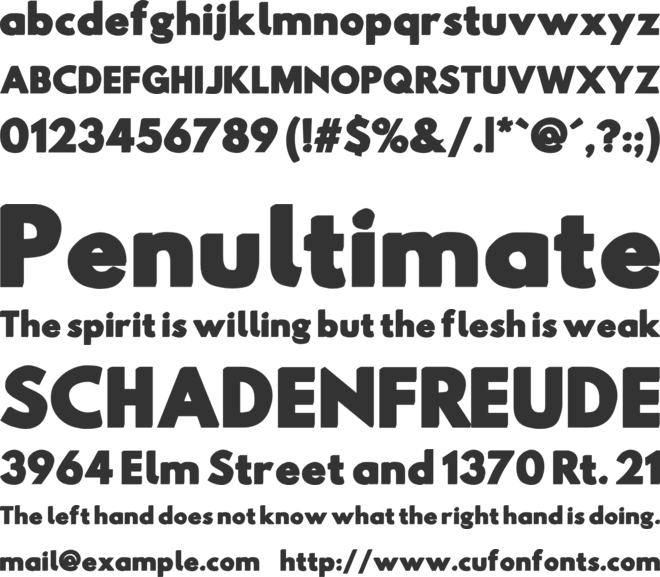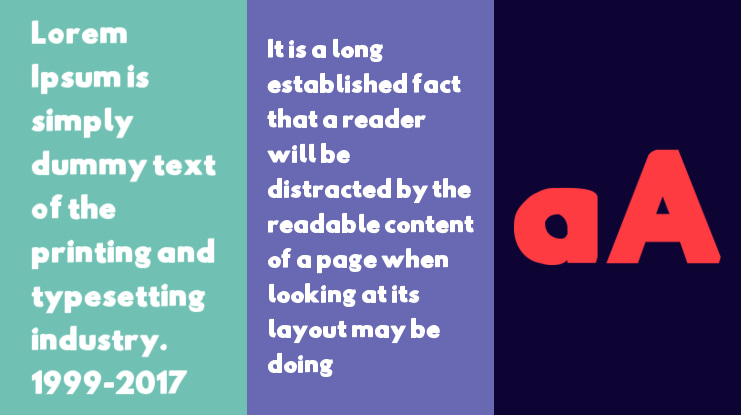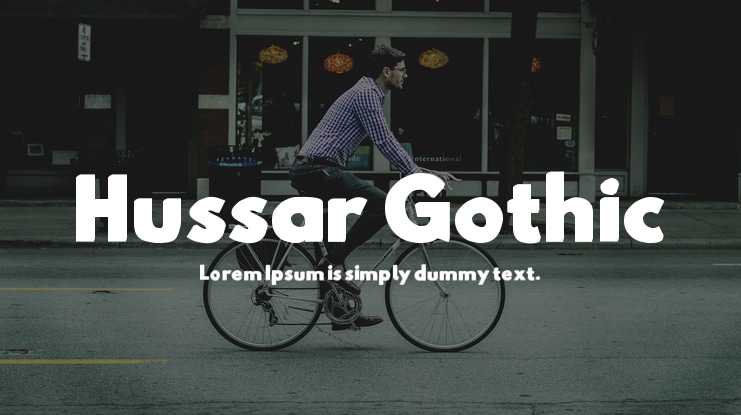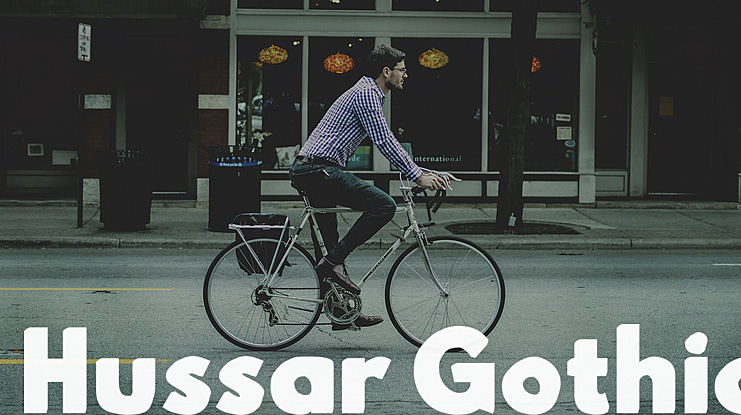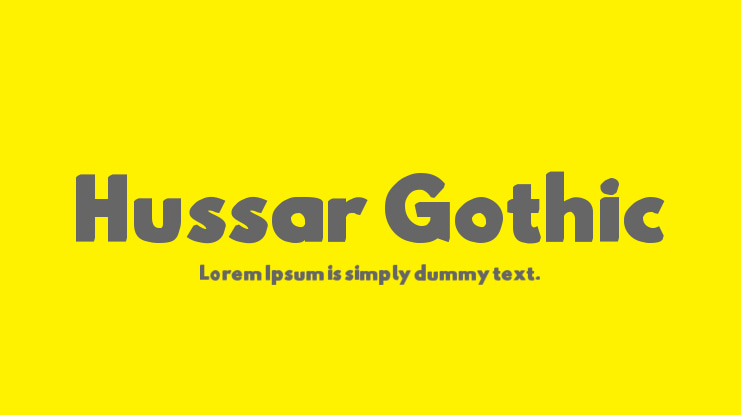
Hussar Gothic Font Family
This font was originally designed while playing with settings in FontForge, and it ended up looking like an Ultra Black late 1800s-early 1900s style "Gothic" sans serif font, hence the name.